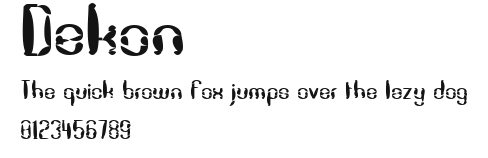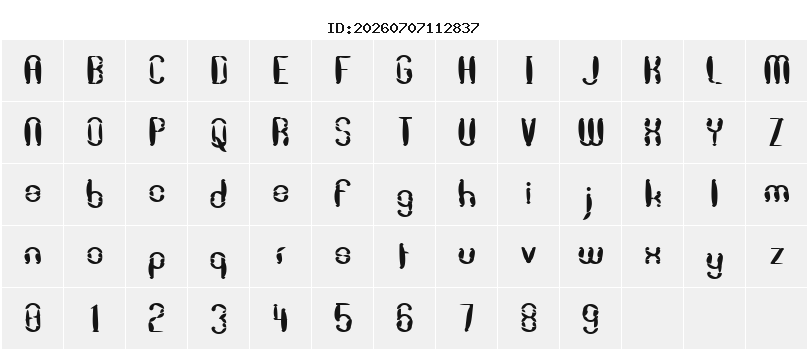
• Font Name: Dekon
• Full Font Name: Dekon
• Designer: Graham Meade
About Dekon.ttf
Dekon.ttf is a modern, elegant sans-serif font designed for ultimate readability and visual harmony. Perfect for branding, headlines, web design, and print materials.